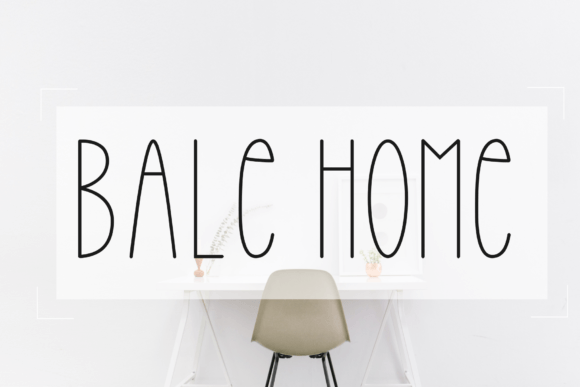
Bale Home Font is a sleek and modern sans serif font designed to elevate your designs to the next level. Its stylish and thin lines make it perfect for a wide range of projects, from branding and advertising to digital products and print materials. Whether you’re a seasoned designer or just starting out, Bale Home Font is a valuable addition to your toolkit. With its versatility and clean design, you’ll find yourself reaching for it time and time again.
Bale Home Font Key Features
- Character Set: This font features a comprehensive character set, including uppercase and lowercase letters, numerals, punctuation marks, and special characters, making it suitable for various design applications.
- Unique Characteristics: The Bale Home Font boasts a distinctive, modern design with a friendly and approachable feel, making it an excellent choice for branding, packaging, and editorial design.
- Font Style: This font family includes various styles, such as Regular, Bold, Italic, and Bold Italic, allowing designers to create visually appealing and dynamic compositions.
Bale Home Font Review
The Bale Home Font is a stylish and elegant sans-serif typeface designed for everyday use. It’s suitable for body text, headings, and even logos. I’ve found that it works well in ✨ digital displays and prints with high resolution. The font’s clean and modern aesthetic makes it an excellent choice for various industries, from tech to lifestyle.
The font’s features include:
- Eight weights, from Thin to Black, to accommodate various design needs
- Support for Latin, Cyrillic, and Greek scripts, making it a versatile option
- Perfect for use in digital media, such as websites, apps, and social media
However, there are some limitations to consider. The font may not be the best choice for ✨ extreme text scaling or very small sizes, as it can lose clarity. Additionally, the font’s design might not be suitable for formal or traditional settings, where a more conservative font is preferred.
Overall, I find the Bale Home Font to be a solid choice for modern designs. While it may not be the perfect fit for every project, it’s an excellent option for those seeking a clean, elegant, and versatile sans-serif typeface.
Common Use Cases for Bale Home Font
Bale Home Font is commonly used in:
- Home decor and interior design projects.
- Food and beverage branding and packaging.
- Home goods and